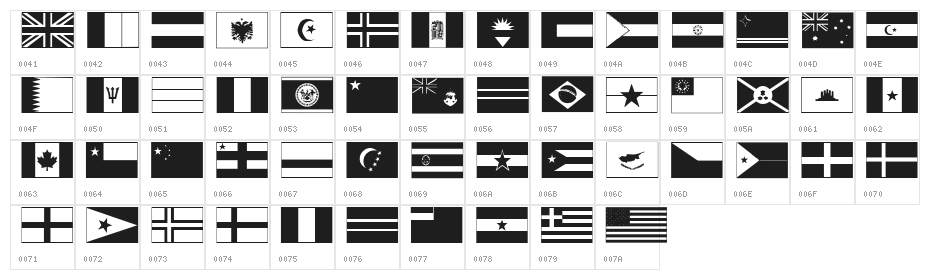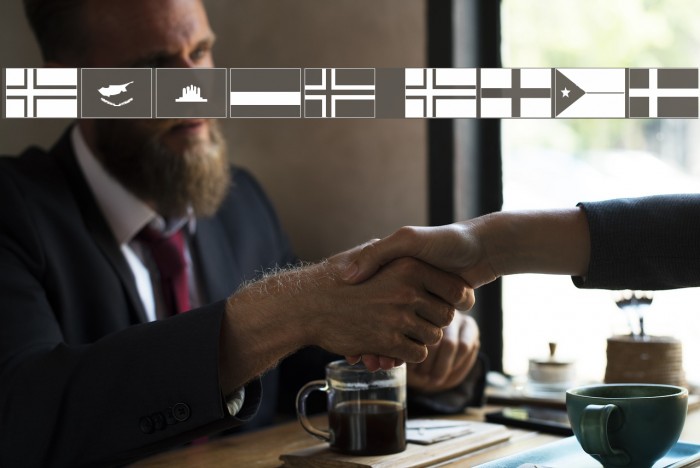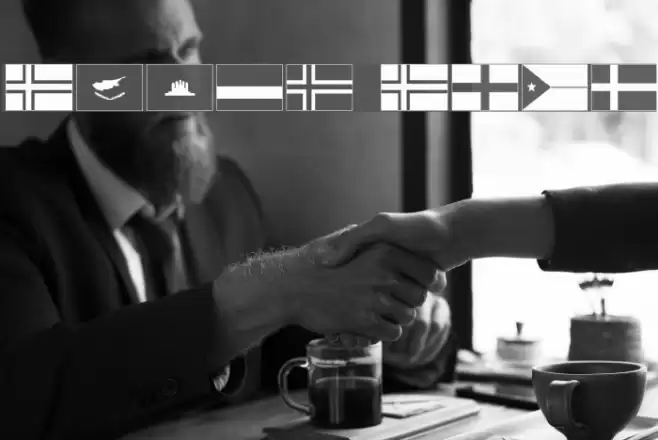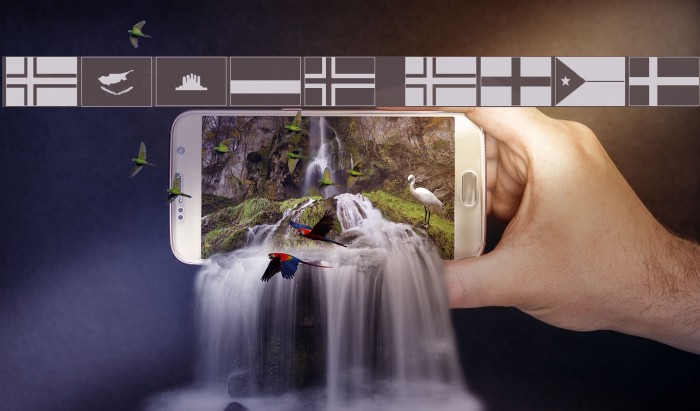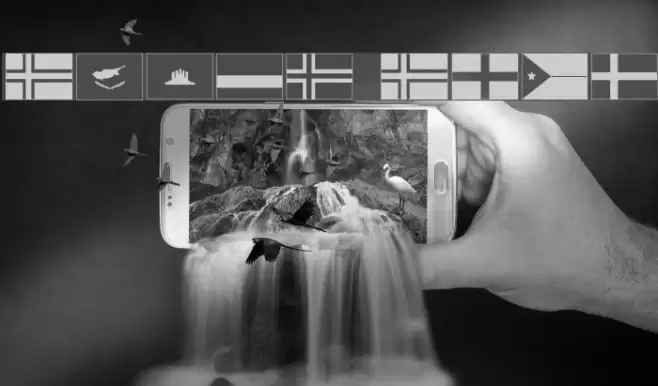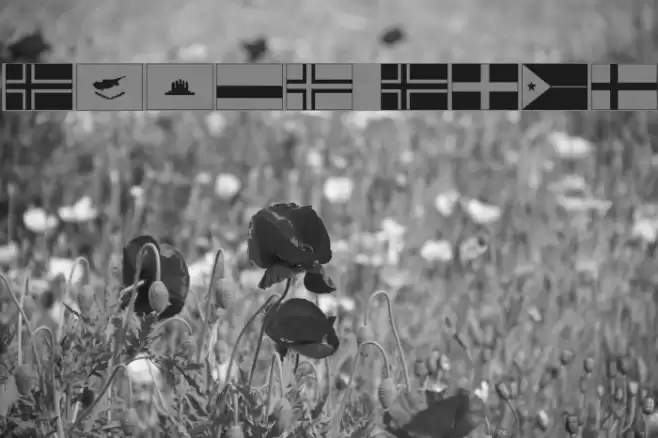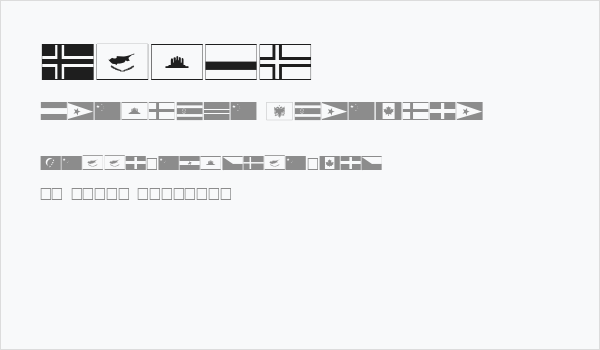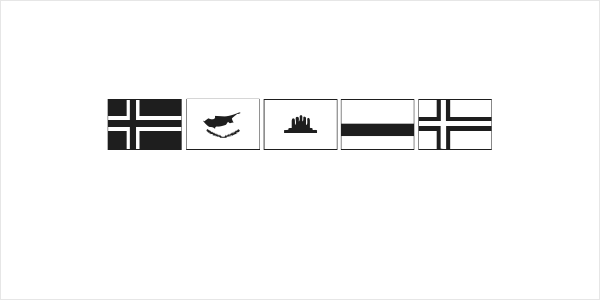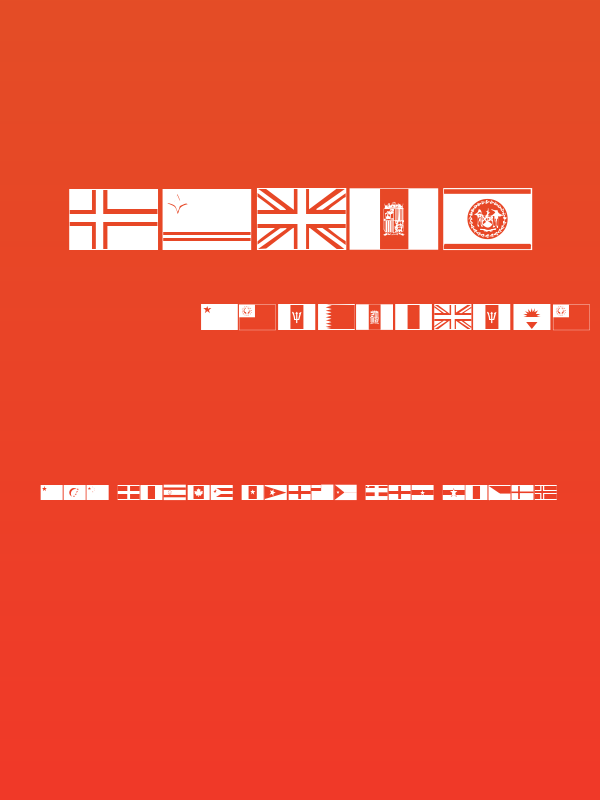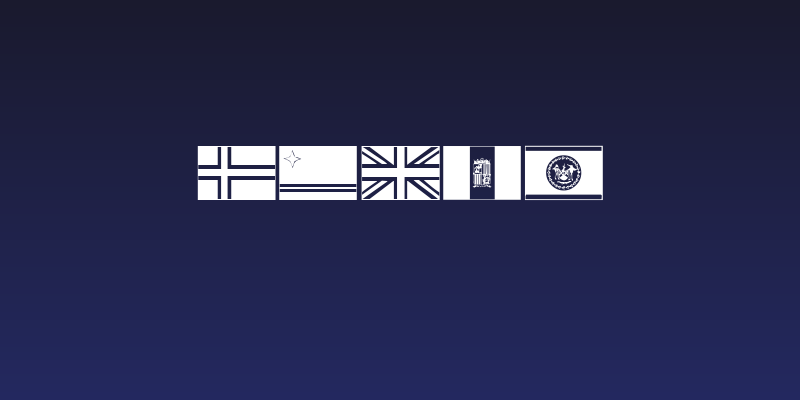
Flags Font
Flags Description
A decorative font where each character is represented by a simplified black-and-white flag or a blank outlined square. The flags are stylized and recognizable, corresponding to various countries or symbols, while some characters are empty squares, likely for punctuation or numbers.
| Use Case | Logos, Posters, Themed Headlines, Educational Tools |
| Proposed Projects | Educational materials, geography games, travel brochures, themed posters, or international event graphics. |